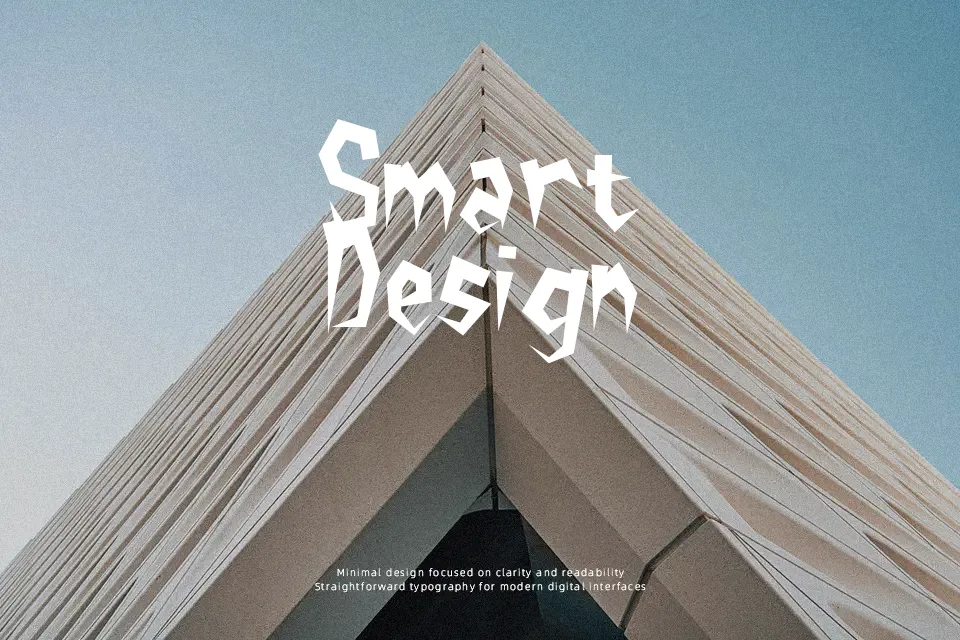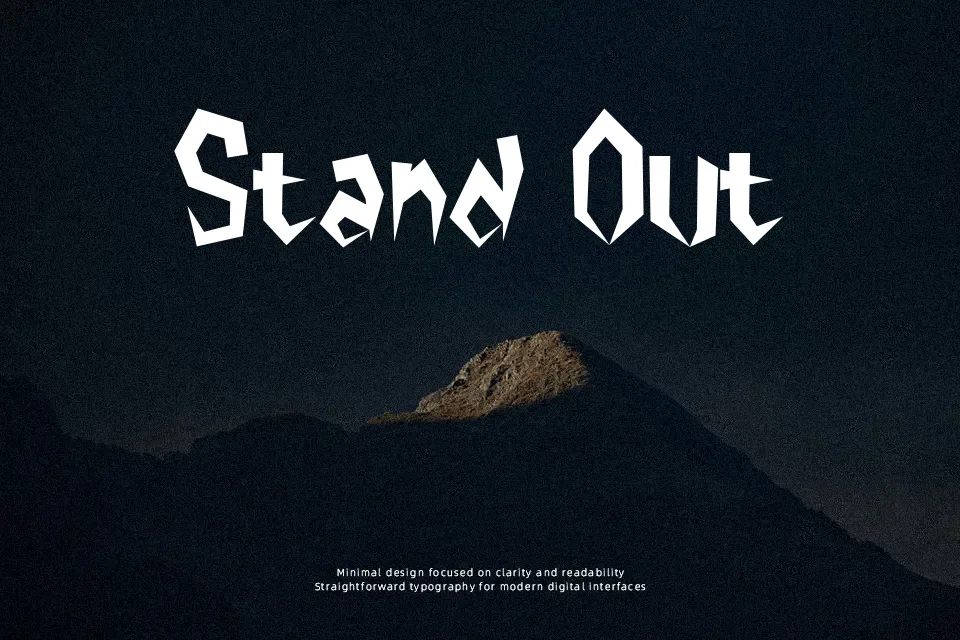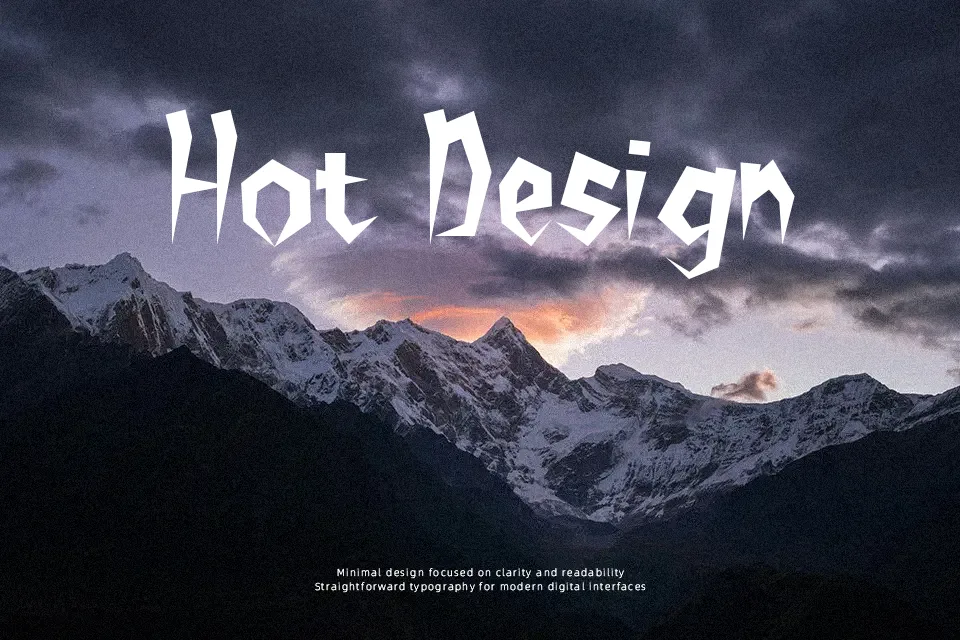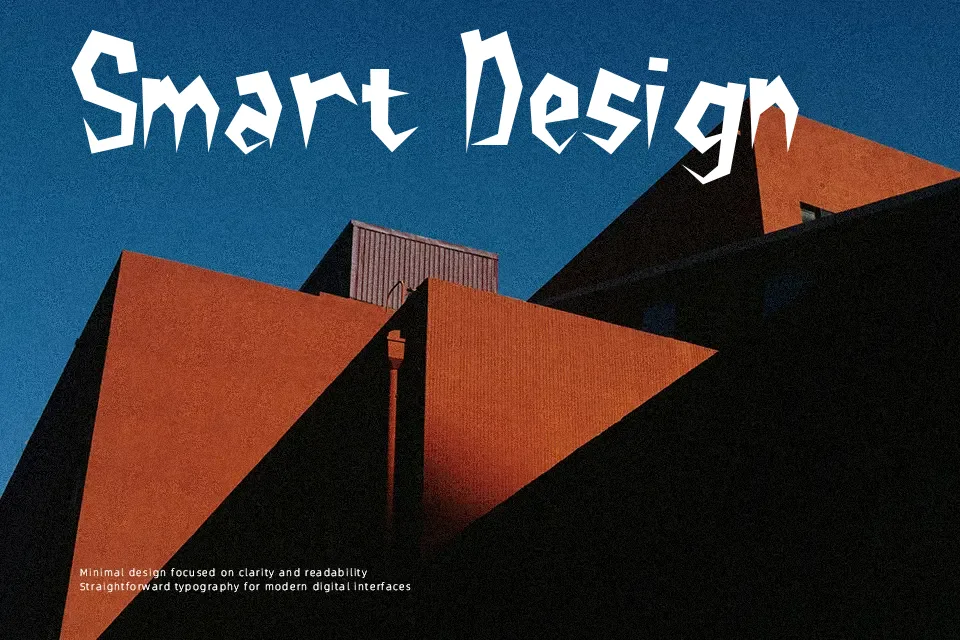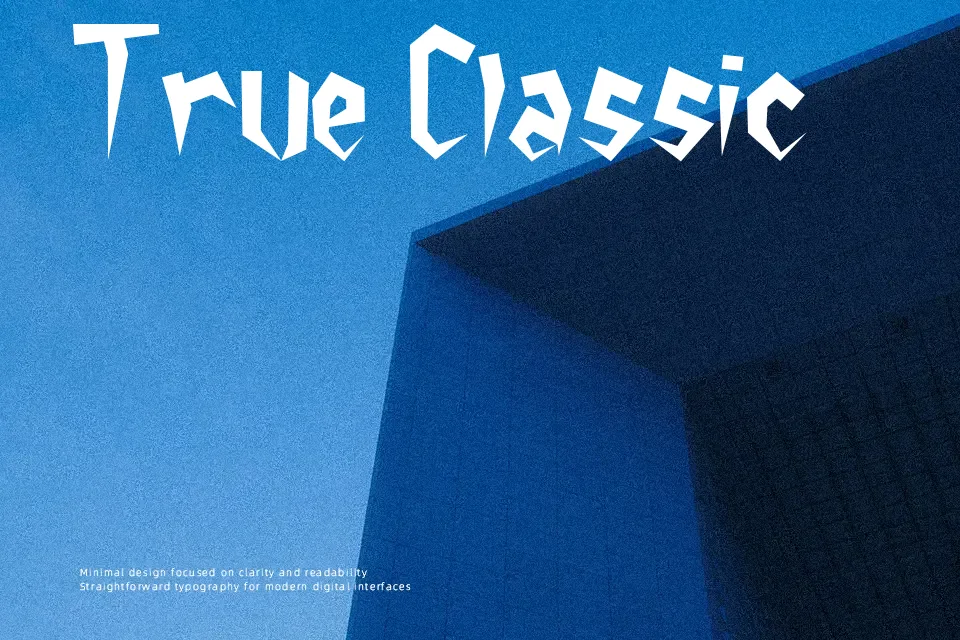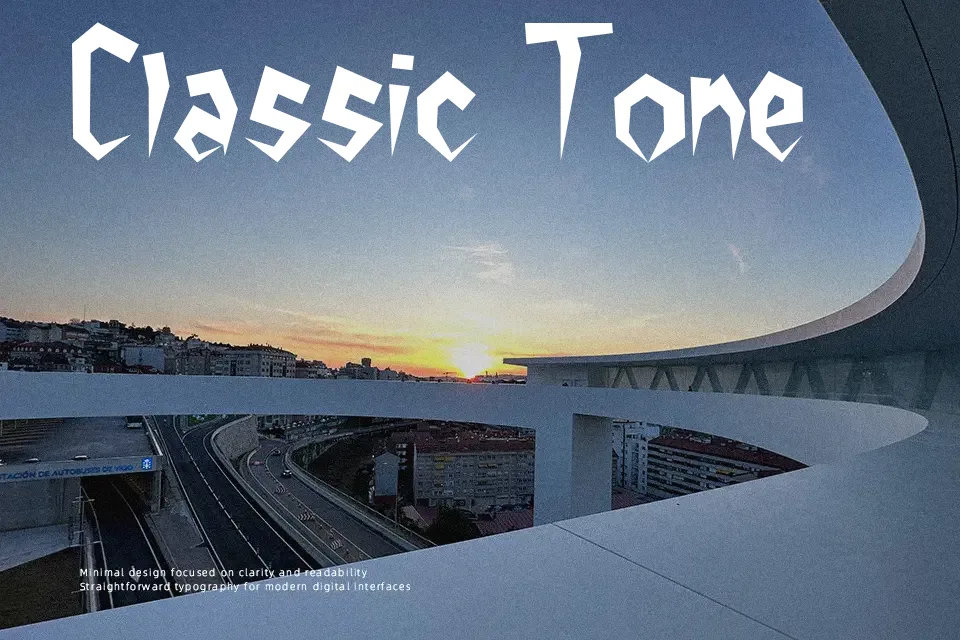
Time Mover Font
Time Mover Font features animated, asymmetrical letterforms built with heavy strokes and sharp, expressive terminal details. The typeface maintains relatively tight horizontal spacing and varied character proportions, producing an energetic rhythm across short words and phrases. Because the glyph silhouettes rely on dramatic contours and unconventional balance, the design achieves immediate visual punch in Halloween banners, festival graphics, and video game title screens. However, these exaggerated structural variations reduce legibility when scaled down, making the letterforms difficult to parse in compact UI components or dense body copy. Displaying the font at generous sizes ensures that its eccentric character remains distinct without straining the reader.
Best For: horror movie title cards, Halloween event flyers, spooky apparel graphics
Not Ideal For: long paragraph text, small interface labels, corporate financial reports
Perfect for film, gaming, and halloween, with a bold and cartoon style.